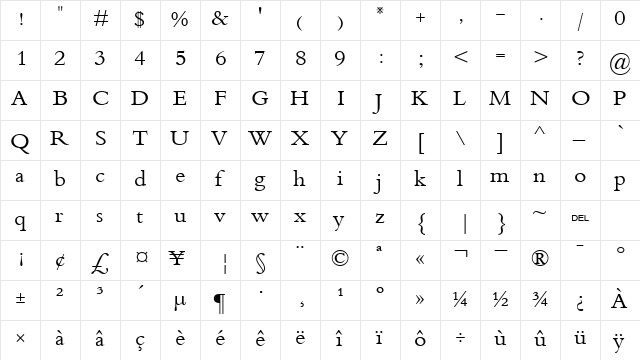
AZ Topaz Regular
Design Context for AZ Topaz Typeface
AZ Topaz offers clean, dependable letterforms without strong stylistic allegiance, making it a practical choice for designers who need flexibility.
Pro Tip: Pair AZ Topaz with a font of contrasting weight or personality to build a more expressive typographic hierarchy.